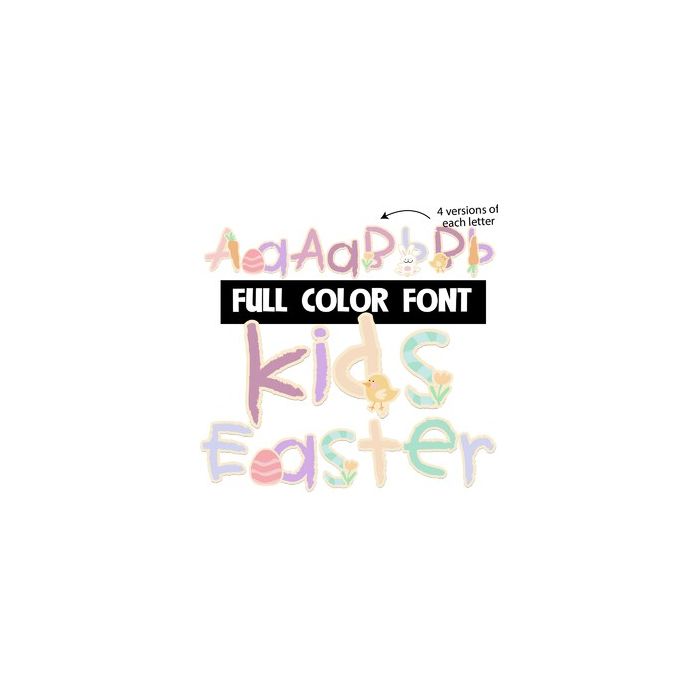
This child-like alphabet is adorned with Easter elements. There is a second upper and lower alt case you can access through your system's character map. This font works best for titles, displays, posters and more. Please note color fonts will show as black in non compatible programs. This font type is compatible with Silhouette Studio.